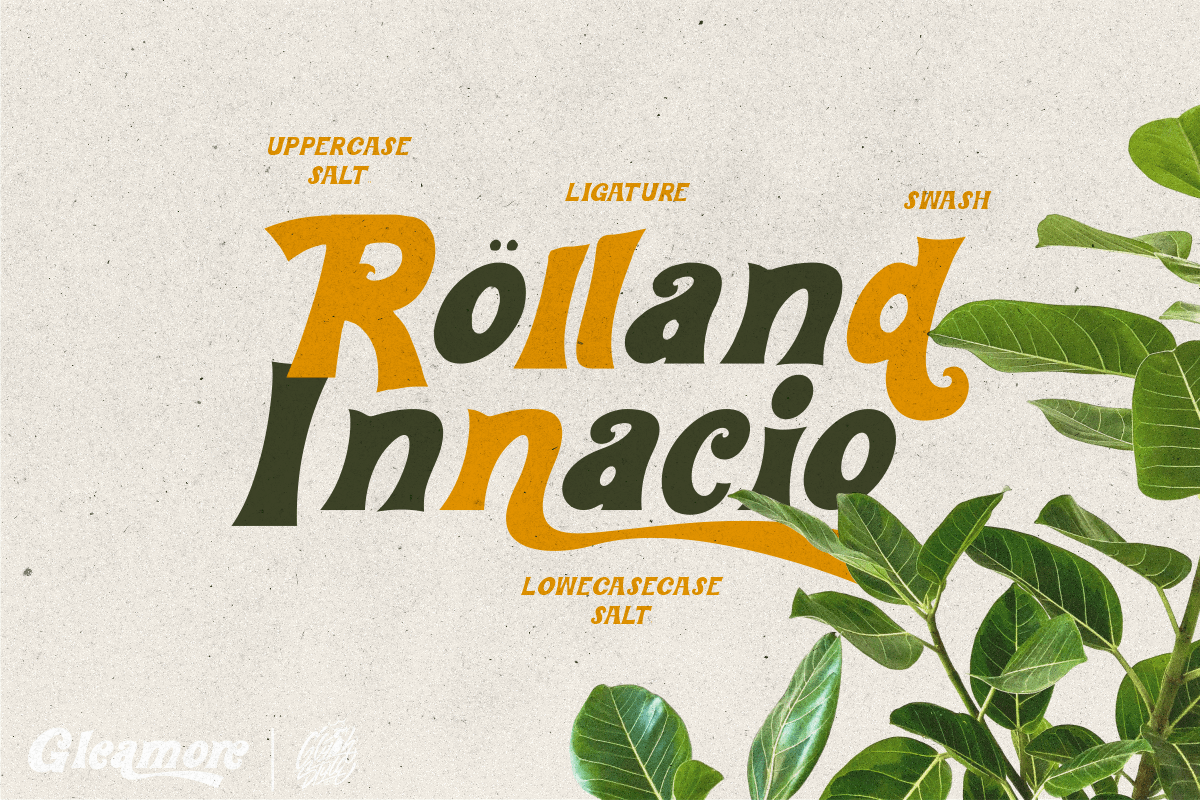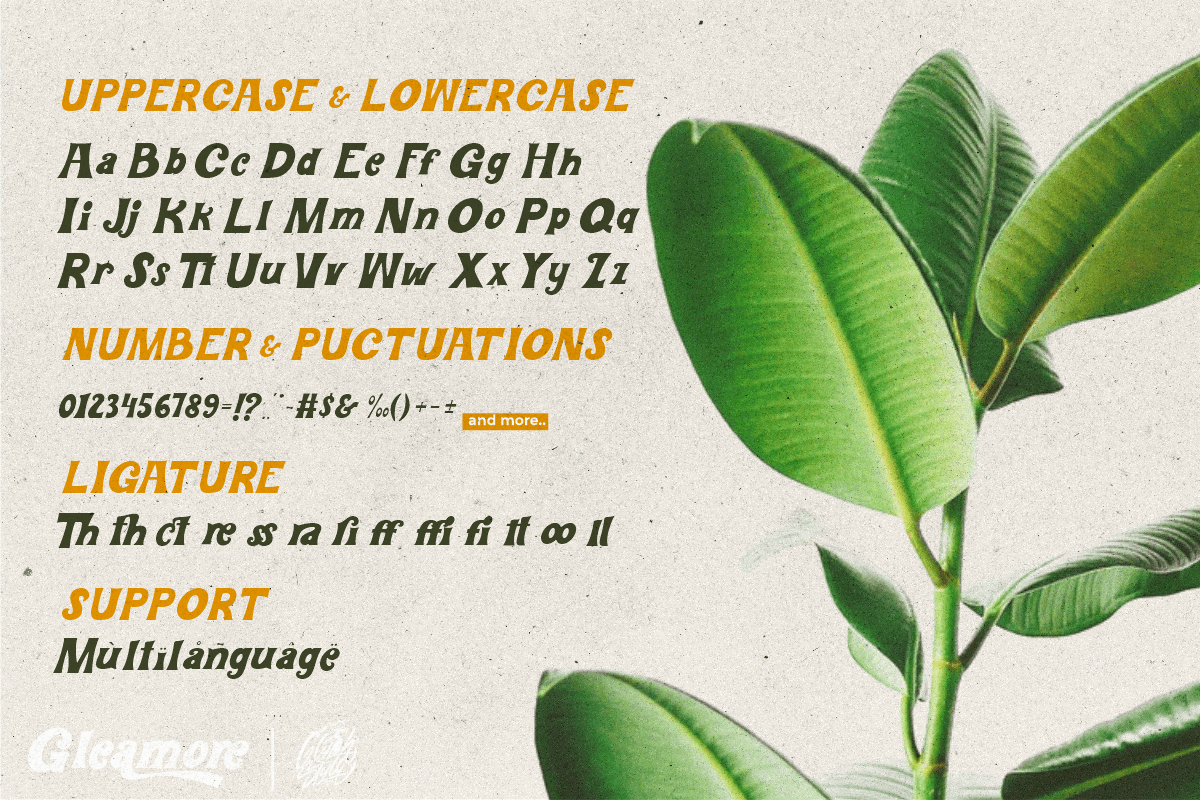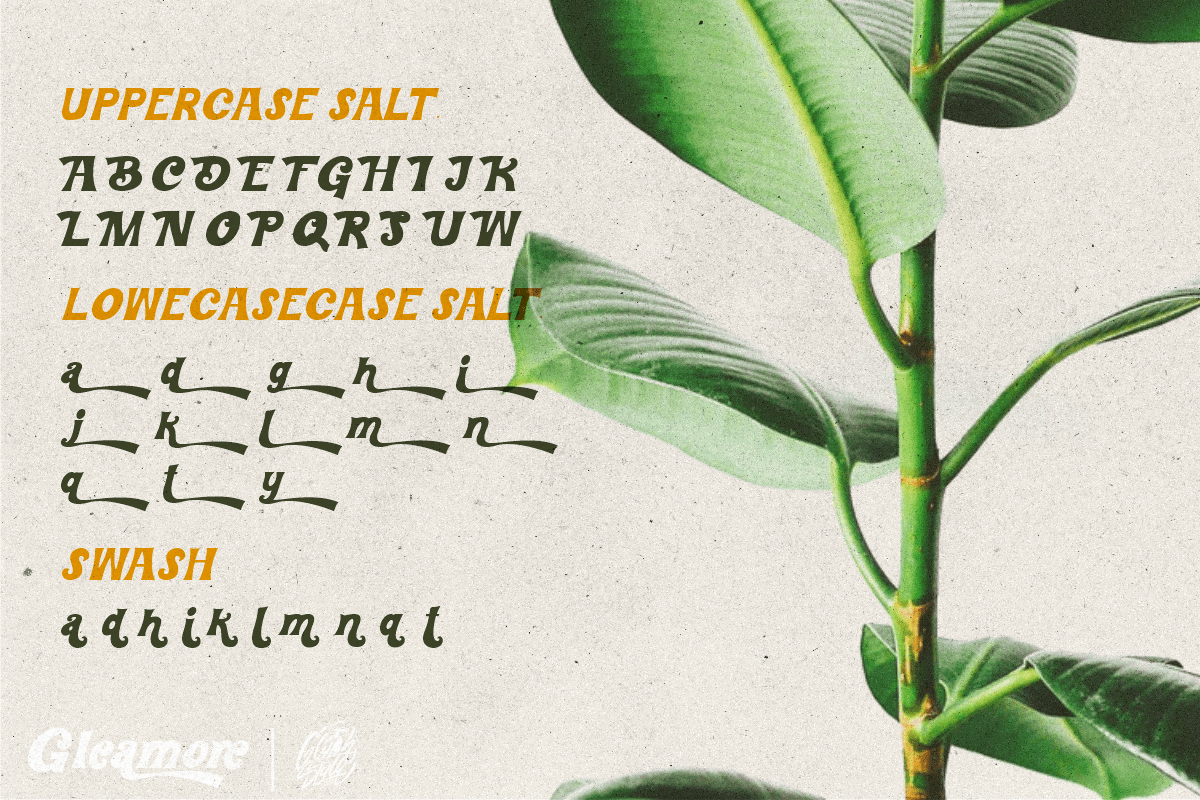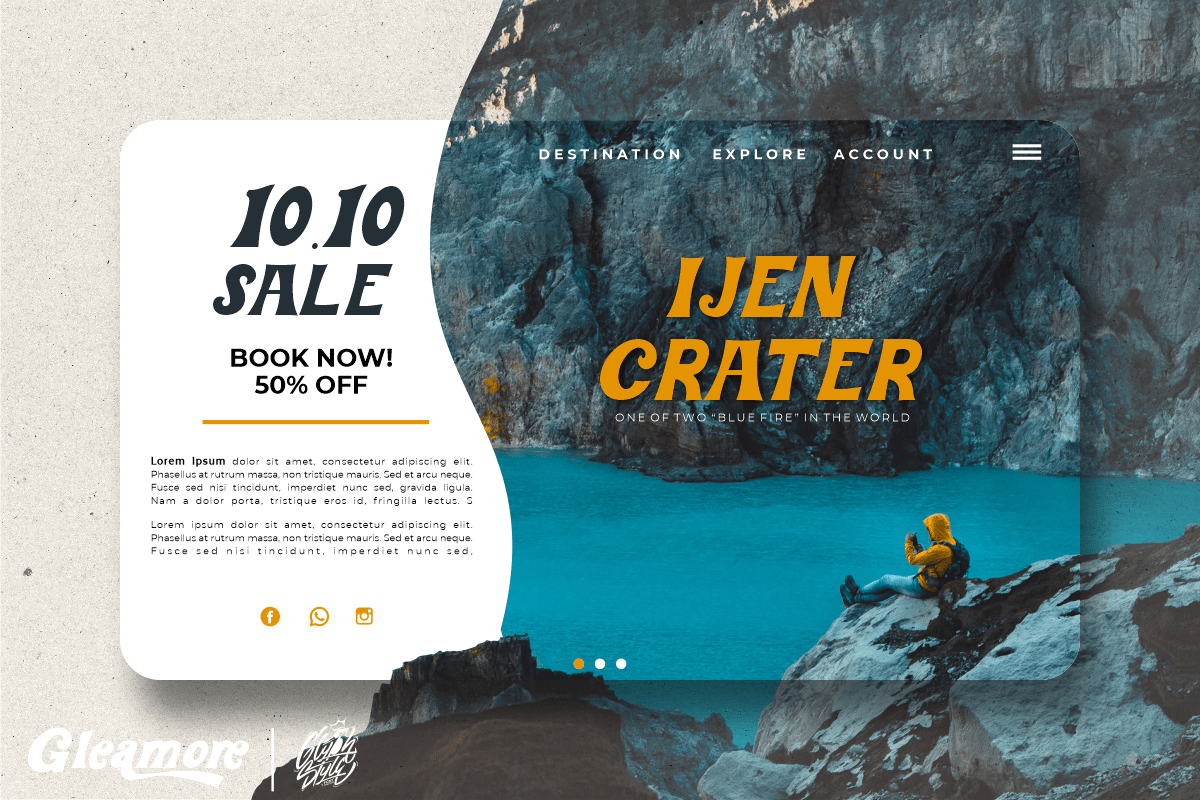
Gleamore Display Font
This is a decorative display font, looks stylish. The bold shape combined with the unique curve shape makes this font easy to read and looks beautiful.